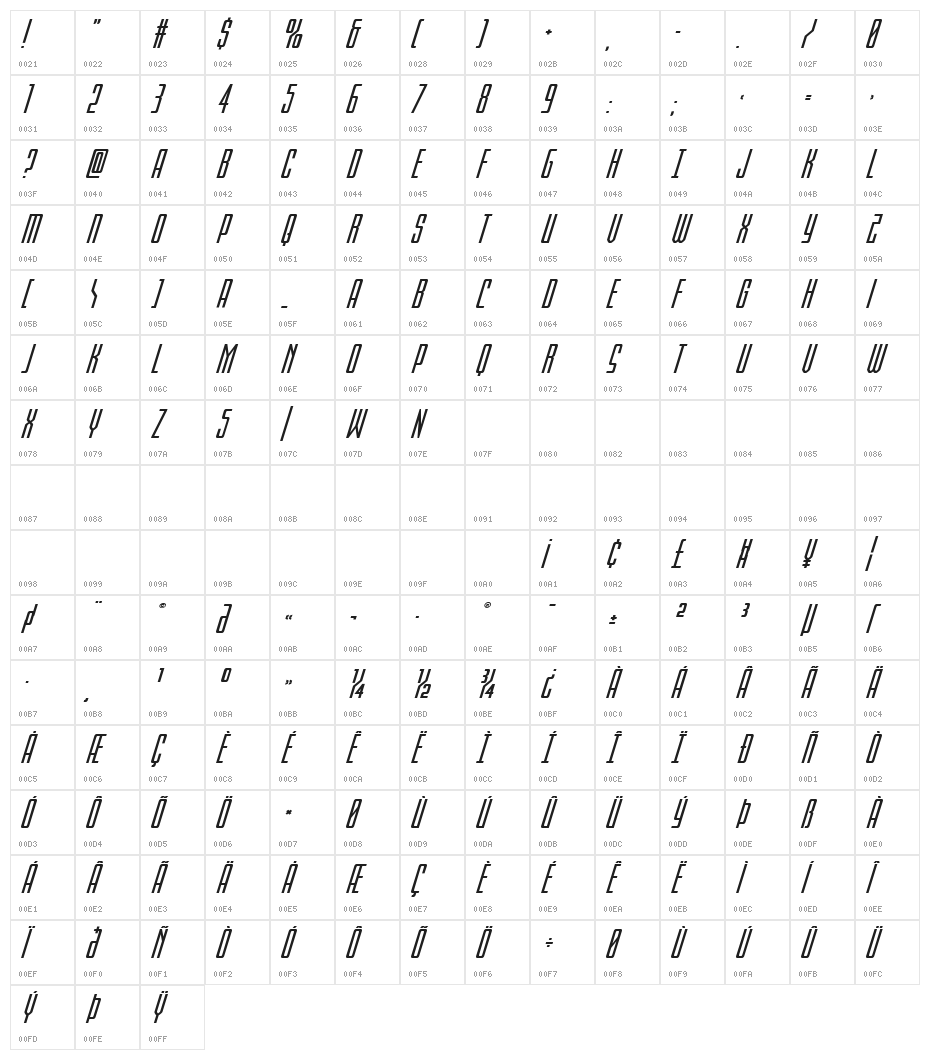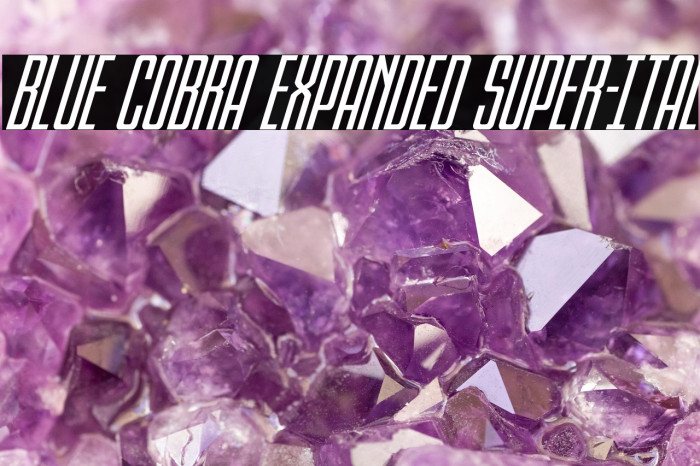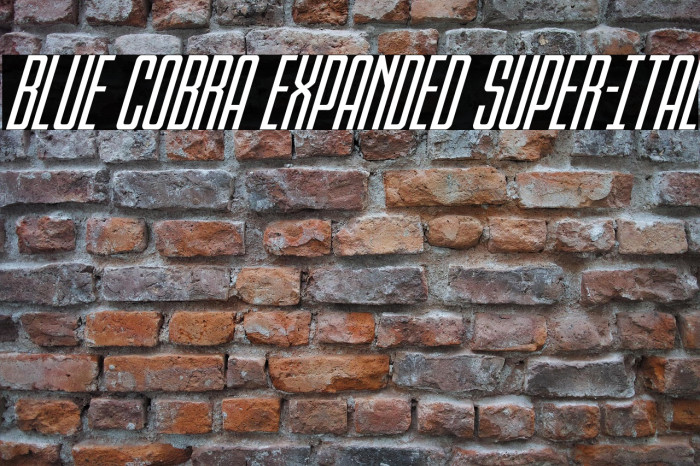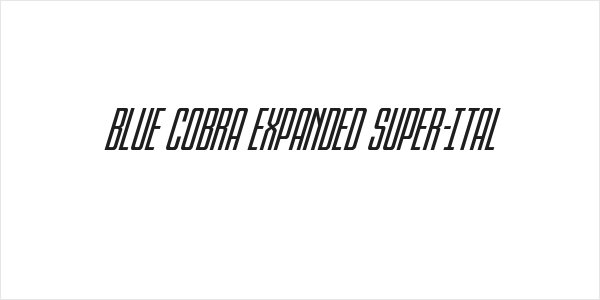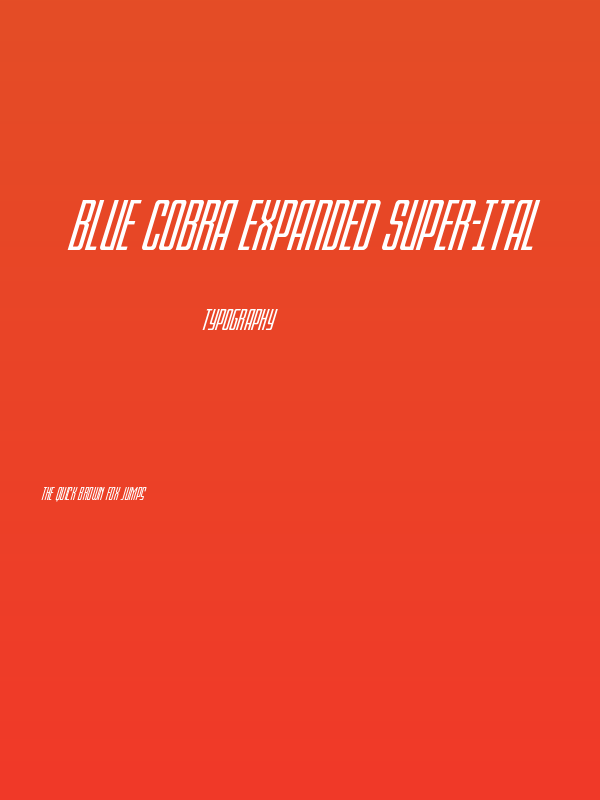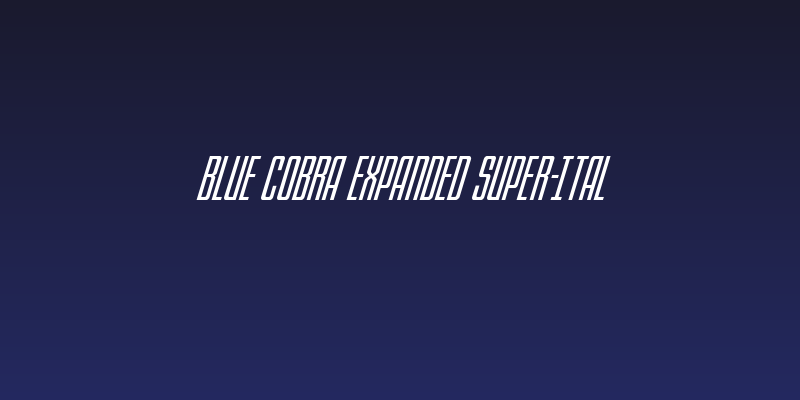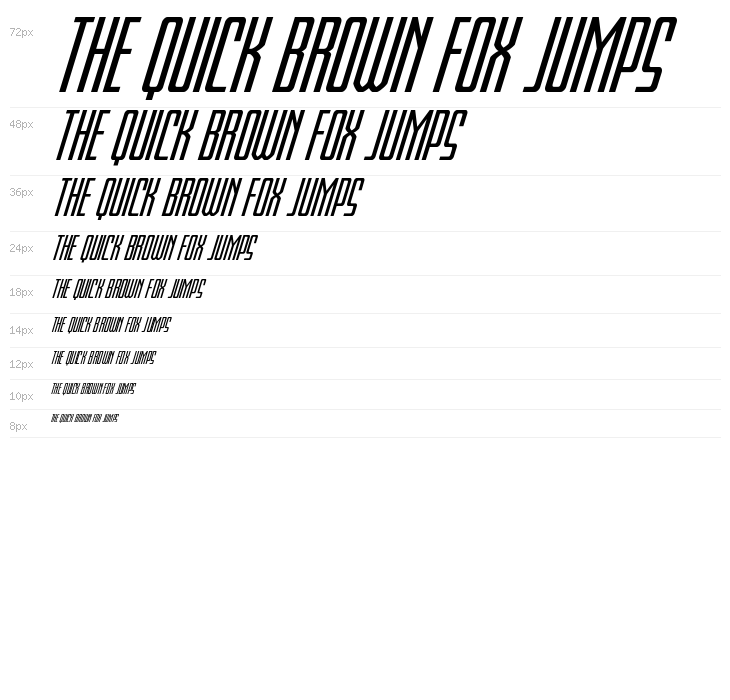
Blue Cobra Expanded Super-Ital Font
Blue Cobra Expanded Super-Ital Description
This font features a dynamic and energetic style with a strong slant, giving it a sense of motion and speed. The characters are elongated and slightly condensed, creating a sleek and modern appearance. The strokes are consistent in width, offering a uniform look across all characters. The uppercase and lowercase letters maintain a cohesive design, while the numerals and special characters complement the overall aesthetic. This font's bold and italicized nature makes it stand out, ideal for attention-grabbing designs.